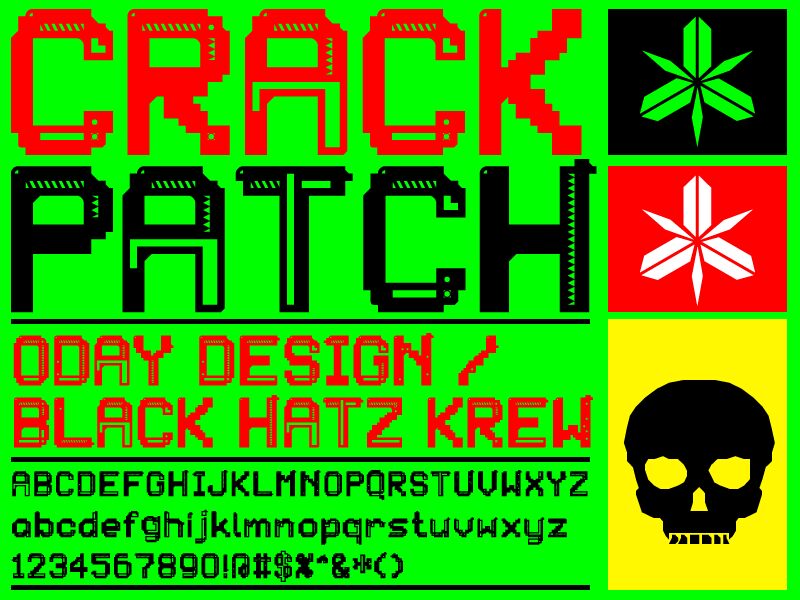
PATCHCRACK
PATCHCRACK, designed by Terrage, is a display font that effortlessly stands out due to its decorative and semi-light styling. Crafted with an edgy and contemporary vibe, this font exudes an aesthetic appeal that's both modern and versatile. Its distinctive character shapes are accentuated by unique breaks and angles, evoking a sense of creativity that breaks away from the traditional.
The semi-light weight of PATCHCRACK offers a refreshing balance between bold presence and subtle sophistication, making it ideal for various creative projects where impact is desired without overwhelming the senses. Whether it's for eye-catching headlines, stylish branding, or avant-garde advertising campaigns, PATCHCRACK is poised to infuse your designs with personality and flair.
With its confident yet approachable style, PATCHCRACK bridges the gap between artistic expression and functional design—perfect for designers looking to make a statement while maintaining readability and engagement.
The semi-light weight of PATCHCRACK offers a refreshing balance between bold presence and subtle sophistication, making it ideal for various creative projects where impact is desired without overwhelming the senses. Whether it's for eye-catching headlines, stylish branding, or avant-garde advertising campaigns, PATCHCRACK is poised to infuse your designs with personality and flair.
With its confident yet approachable style, PATCHCRACK bridges the gap between artistic expression and functional design—perfect for designers looking to make a statement while maintaining readability and engagement.